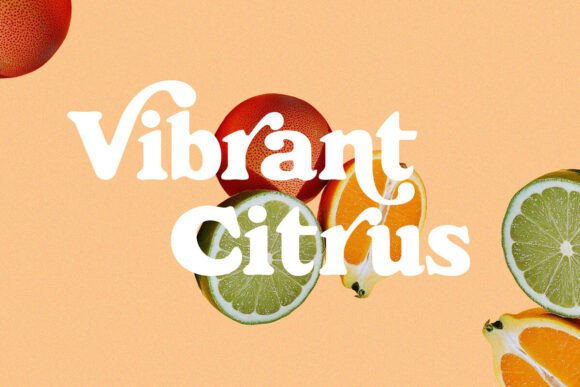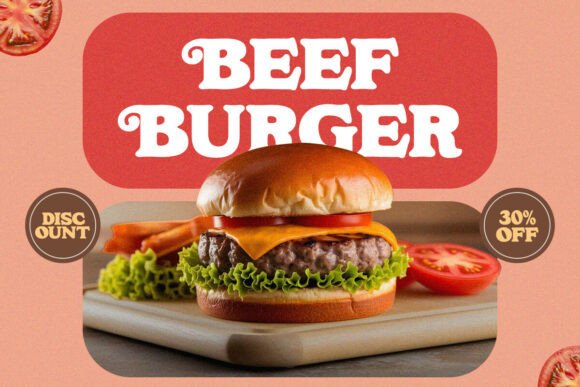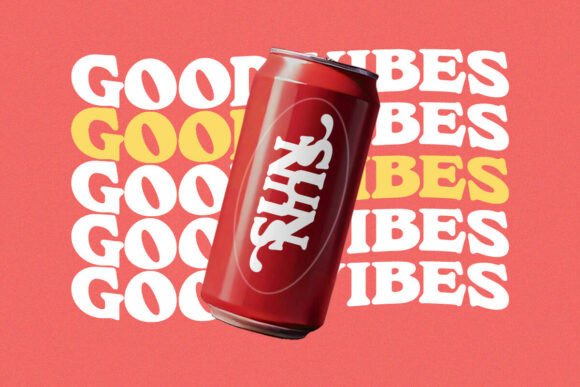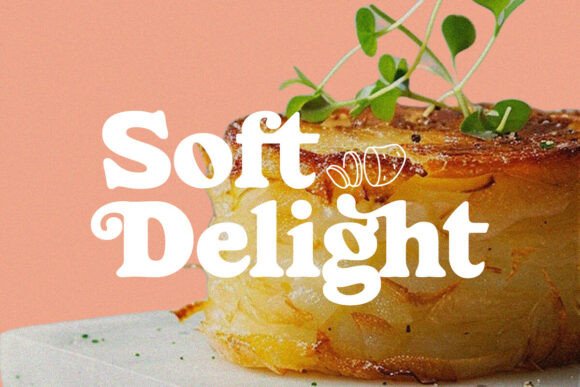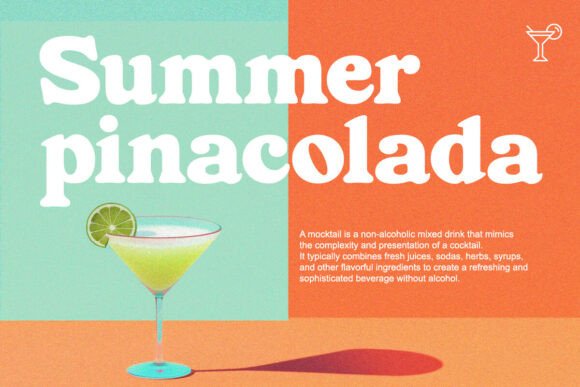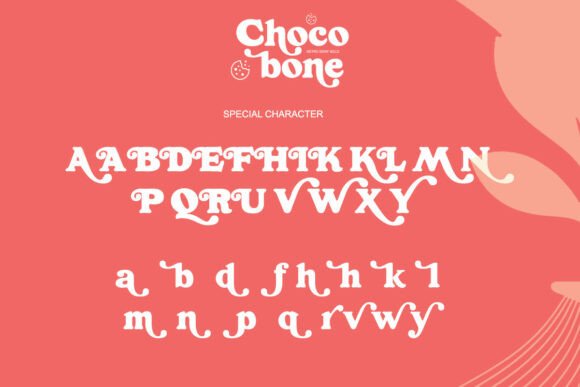
Introducing Choco Bone Font: A Bold Retro Serif Display for Standout Design
In the world of typography, fonts play a crucial role in shaping the visual identity of a brand or design project. For designers and crafters looking to make a lasting impression, a bold and eye-catching font is essential. This is where Choco Bone comes in – a bold retro serif display font that combines classic design elements with modern flexibility. In this article, we’ll explore the features and benefits of Choco Bone, and why it’s an excellent choice for designers seeking a retro aesthetic with a contemporary edge.
A Retro-Inspired Font with a Modern Twist
Choco Bone is a bold serif display font that draws inspiration from retro design, while offering the versatility needed for modern creative work. Its thick curves, sharp serifs, and stylish alternates give it a playful yet refined tone, making it perfect for a wide range of design applications. Whether you’re working on logos, packaging, posters, or brand identities, Choco Bone brings a strong personality and visual impact to your projects.
Key Features of Choco Bone Font
• Regular and Italic Styles: Choco Bone comes in both regular and italic styles, providing you with flexibility and options for your design projects.
• High Readability: The font’s bold and clear design ensures high readability, making it ideal for headline treatments, titles, and other display text.
• Multi-Language Support: Choco Bone supports over 20 languages, making it a great choice for global brands and projects.
• PUA Encoding: The font features PUA encoding, which allows full access to all glyphs without requiring special design software.
Design Applications for Choco Bone
Choco Bone’s versatility and visual impact make it suitable for a wide range of design applications, including:
• Logos and Branding: Use Choco Bone to create bold and memorable logos that make a lasting impression.
• Packaging Design: Add a touch of retro flair to your packaging designs with Choco Bone’s unique and eye-catching style.
• Posters and Flyers: Create striking posters and flyers with Choco Bone’s bold and attention-grabbing design.
• Digital Media: Use Choco Bone in digital media, such as social media graphics, website headers, and email marketing campaigns.
Why Choose Choco Bone?
For designers and crafters looking for a bold and eye-catching font, Choco Bone is an excellent choice. Here are some reasons why:
• Unique and Memorable: Choco Bone’s retro-inspired design ensures that your projects stand out from the crowd.
• Flexible and Versatile: The font’s regular and italic styles, combined with its multi-language support, make it suitable for a wide range of design applications.
• Easy to Use: Choco Bone’s PUA encoding and cross-platform compatibility make it easy to use and integrate into your design workflow.
In conclusion, Choco Bone is a bold retro serif display font that offers a unique combination of classic design elements and modern flexibility. Its thick curves, sharp serifs, and stylish alternates make it perfect for designers and crafters looking to add a touch of retro flair to their projects. With its high readability, multi-language support, and cross-platform compatibility, Choco Bone is an excellent choice for a wide range of design applications. Whether you’re working on logos, packaging, posters, or brand identities, Choco Bone is a confident and stylish choice that is sure to make a lasting impression.